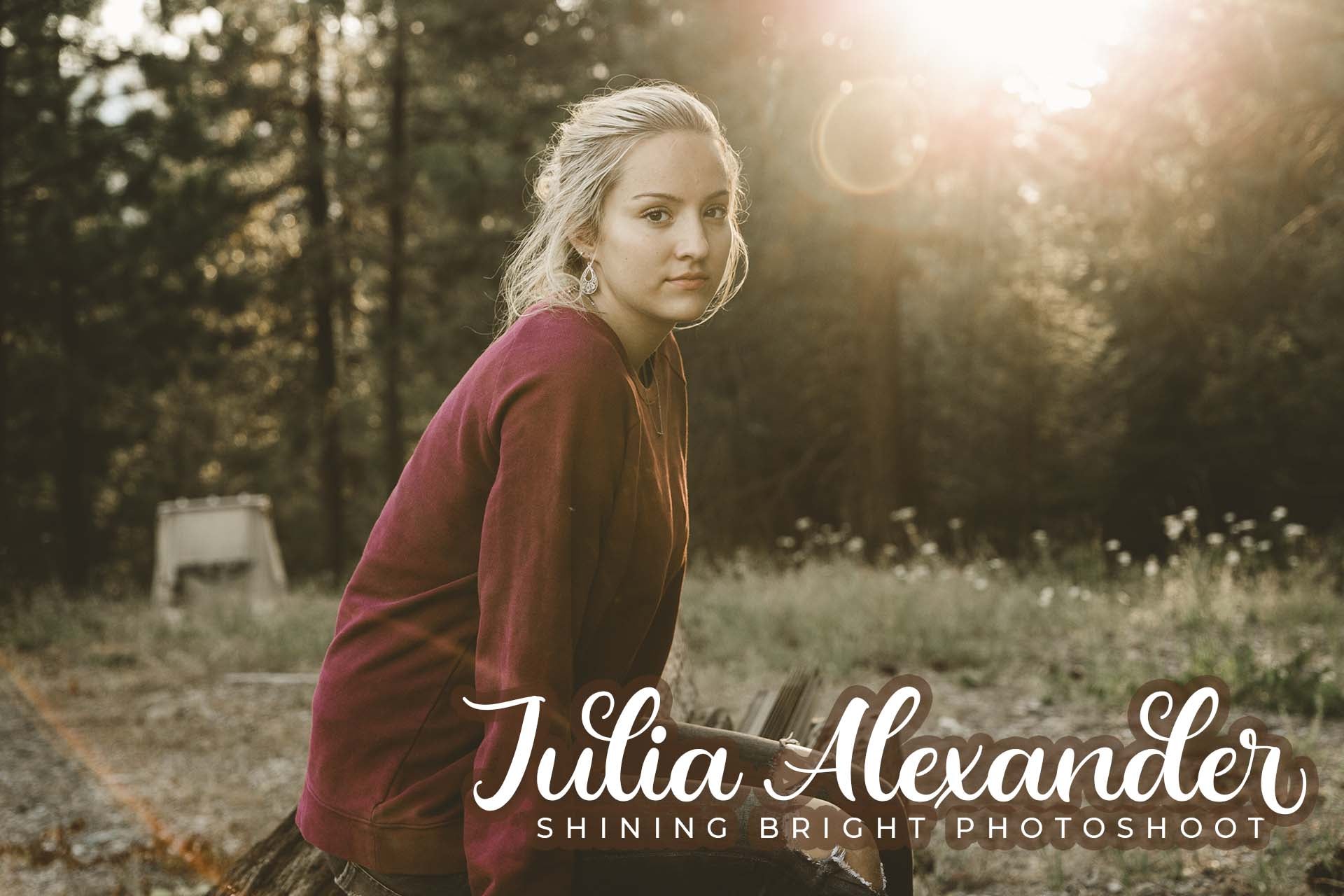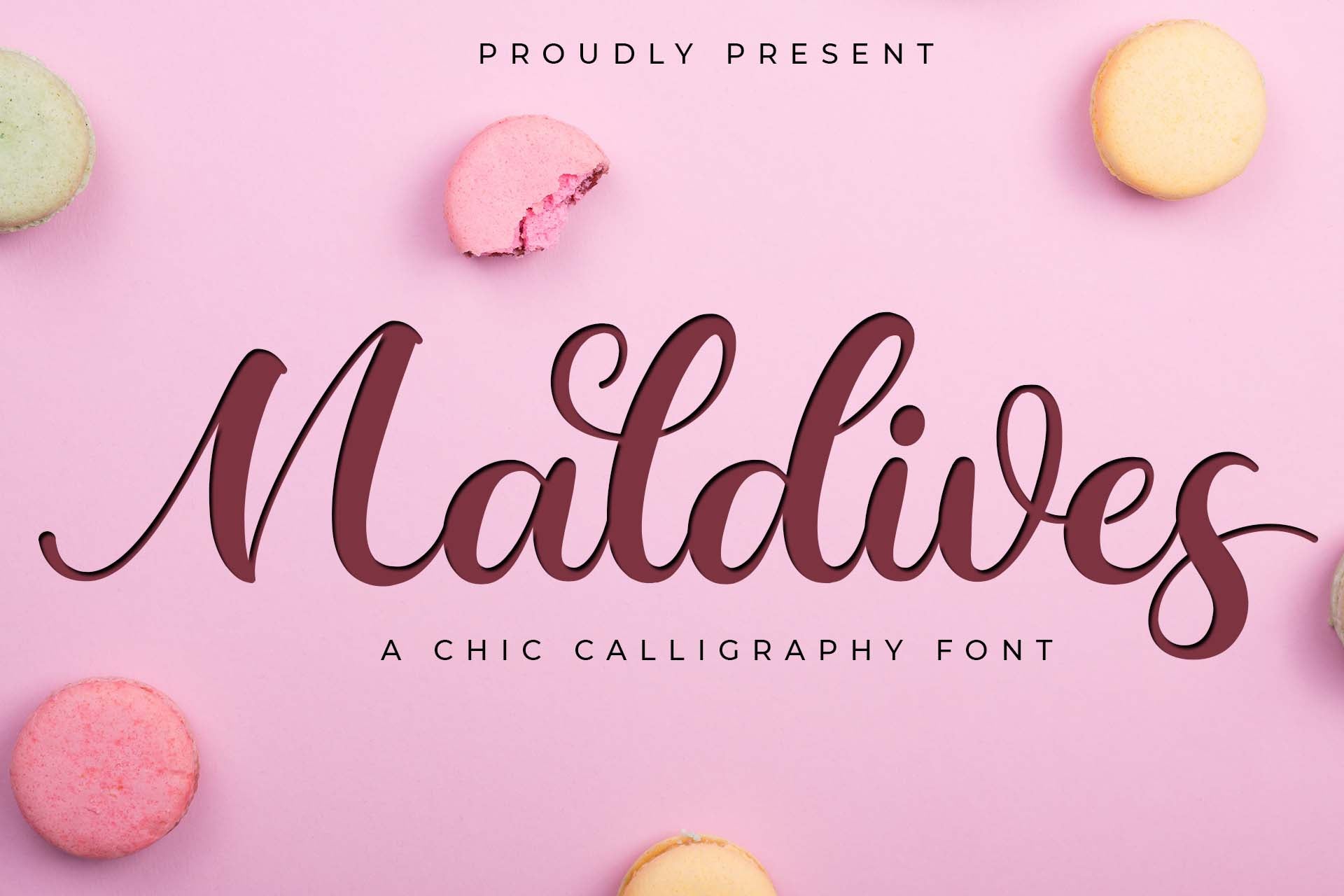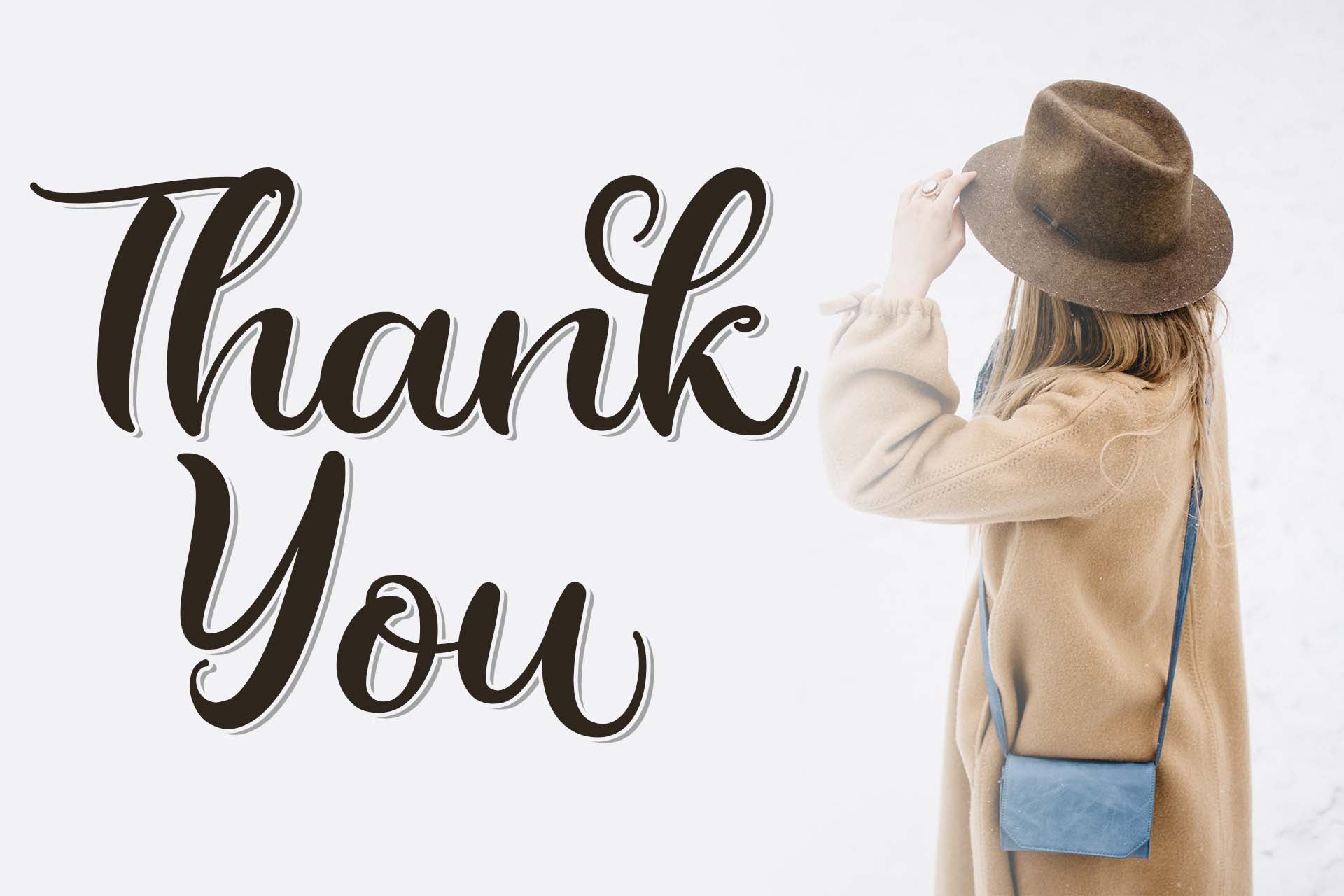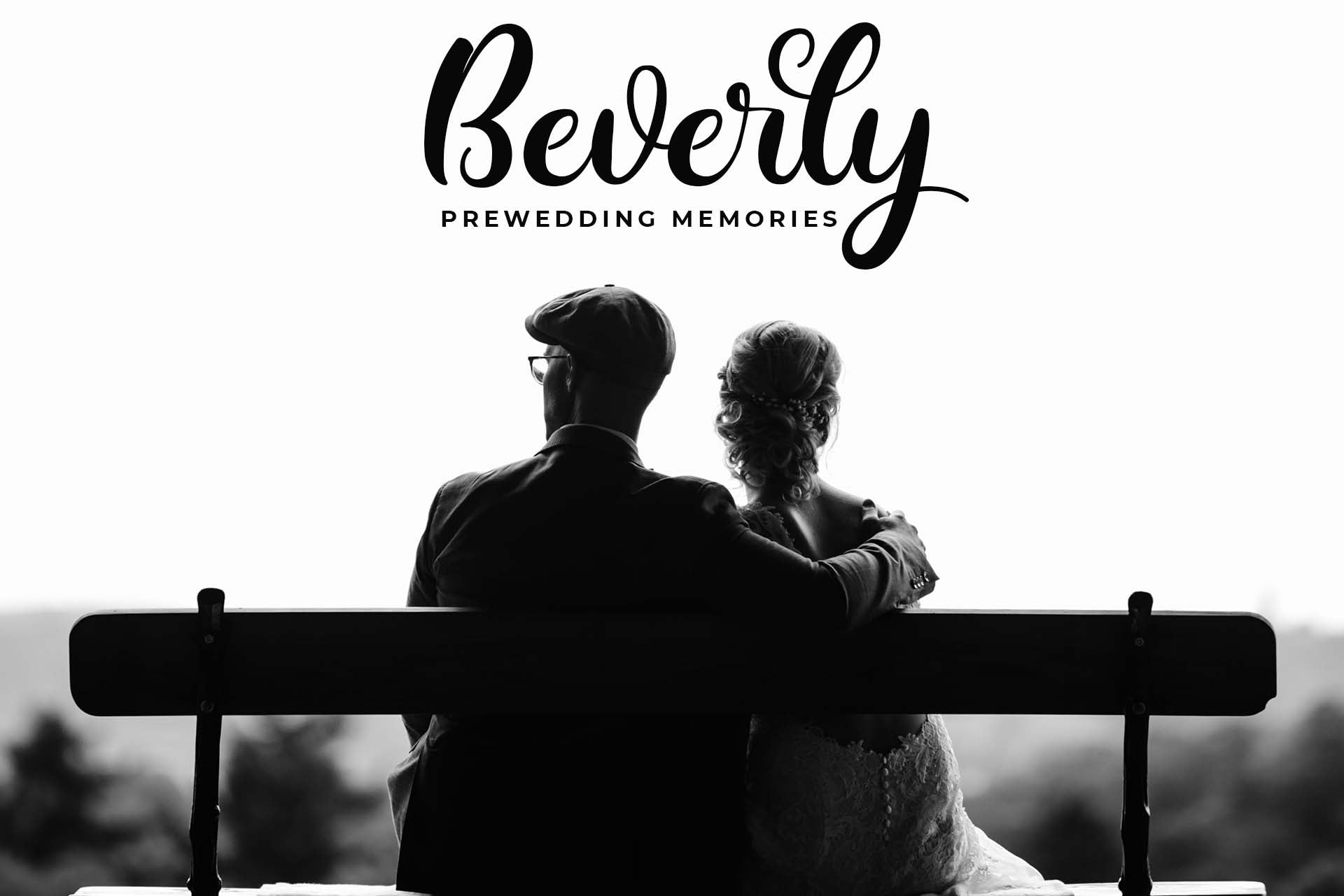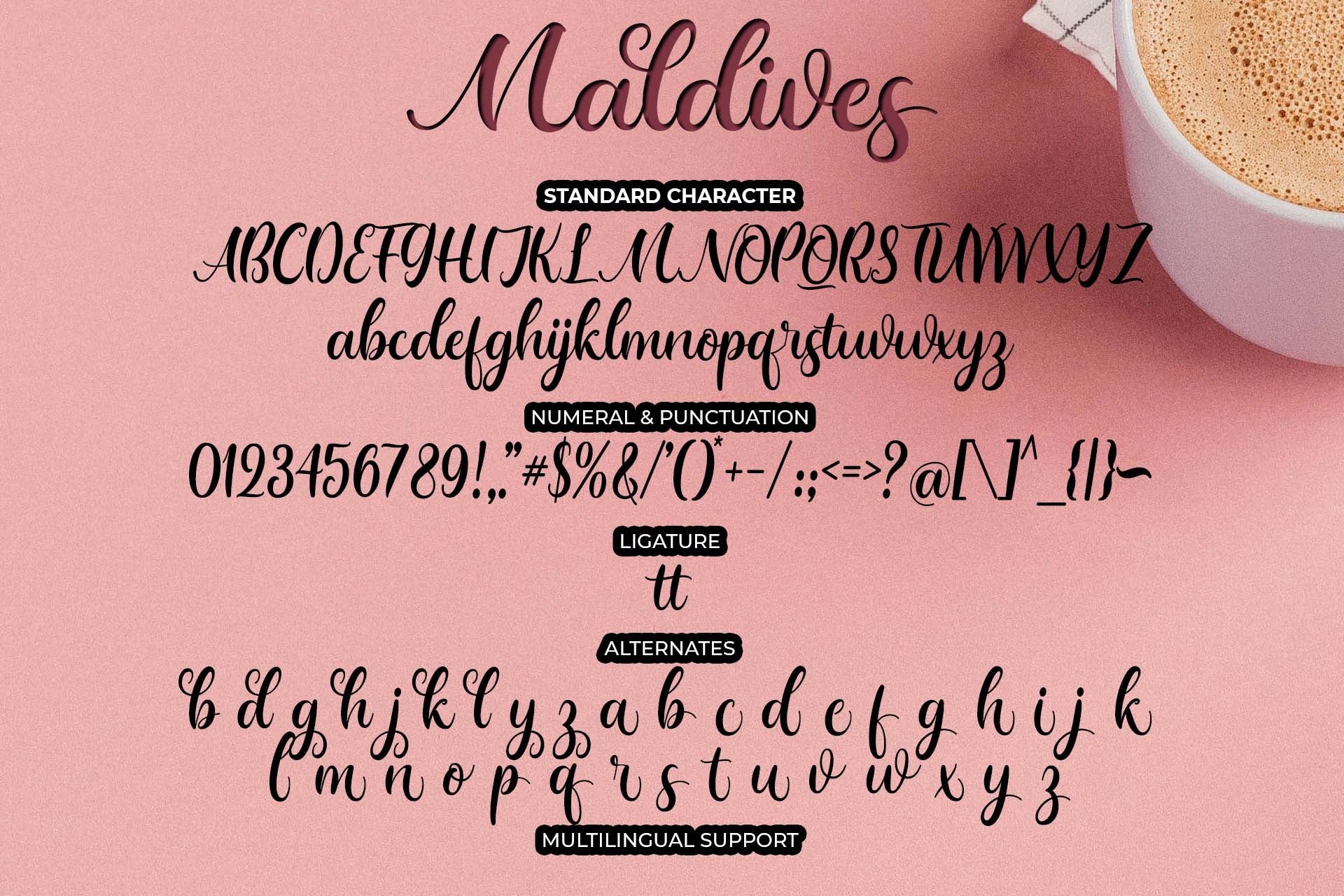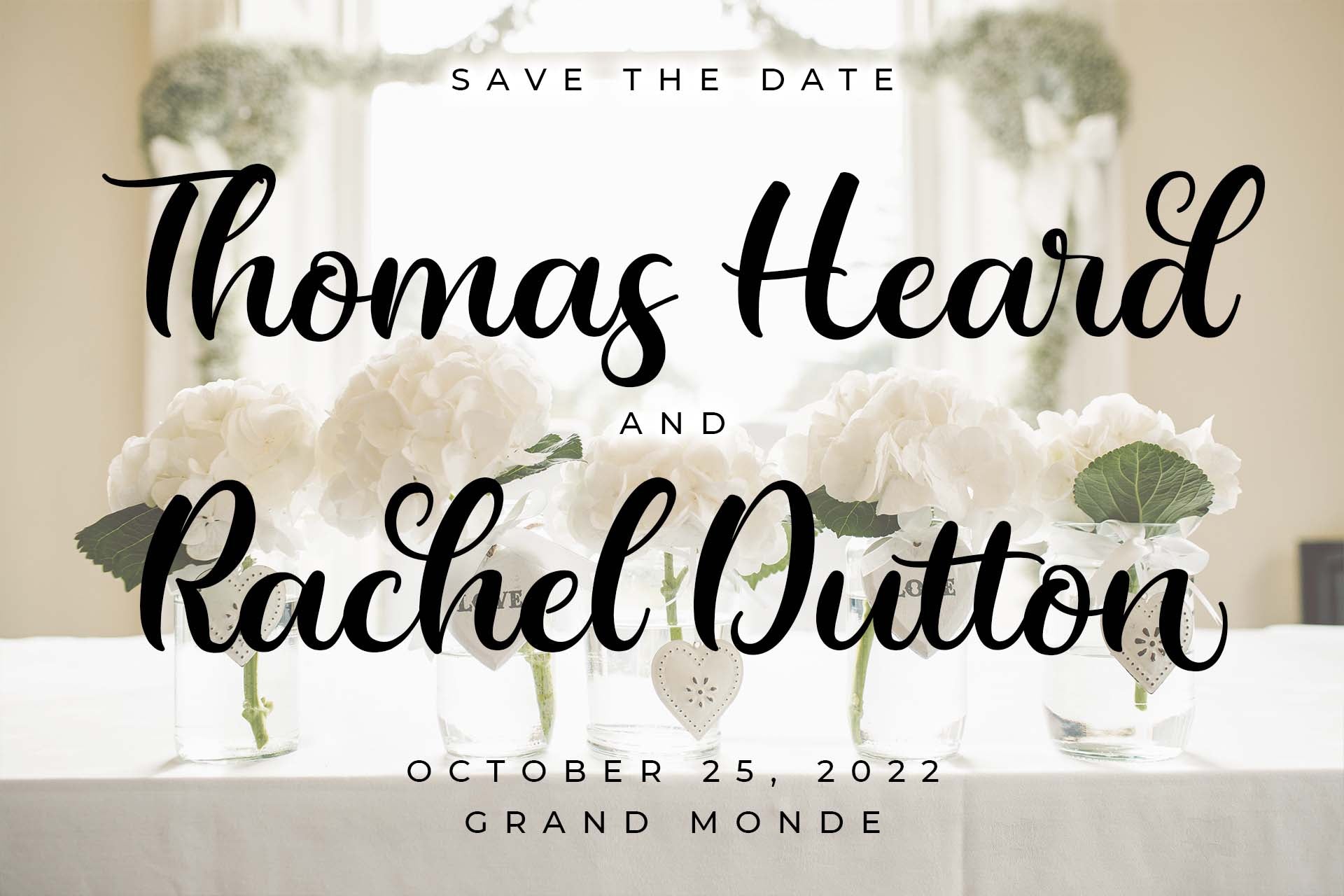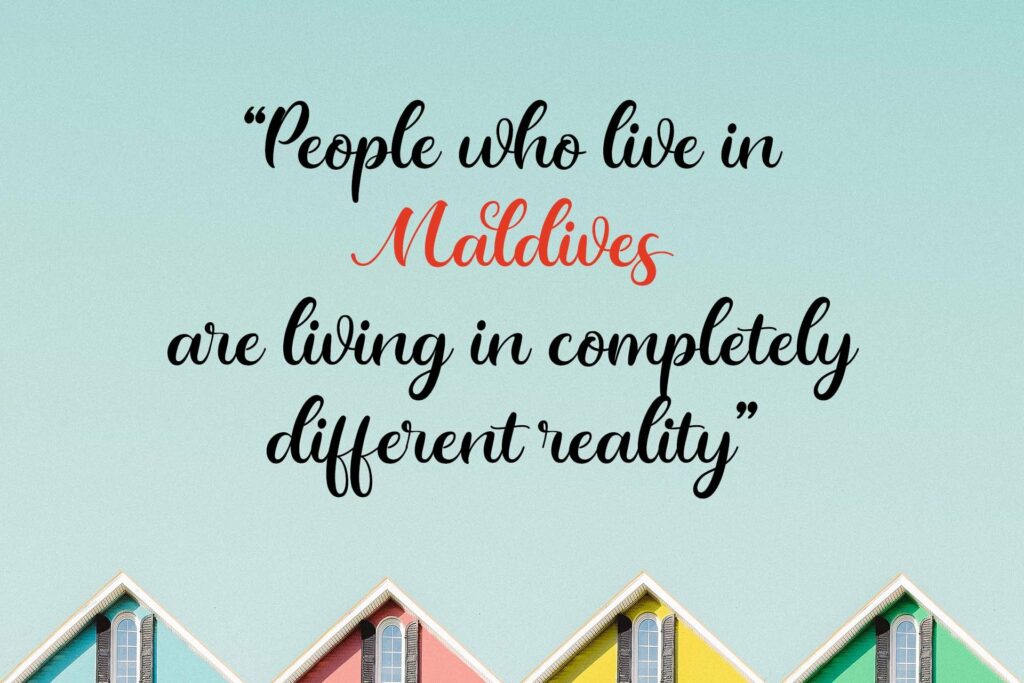
Maldives
About Maldives
Maldives is an elegant and impressive handwritten font. This font is suitable for displaying both formal and informal designs. It is the best choice for creating attractive logos, branding, and quotes. Each letter has a unique and beautiful touch, perfect for designs that require an elegant and beautiful appearance. This font is PUA encoded which means you can access all of the amazing glyphs and ligatures with ease!